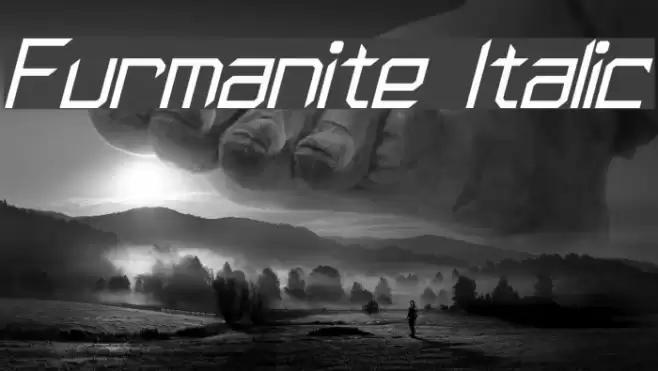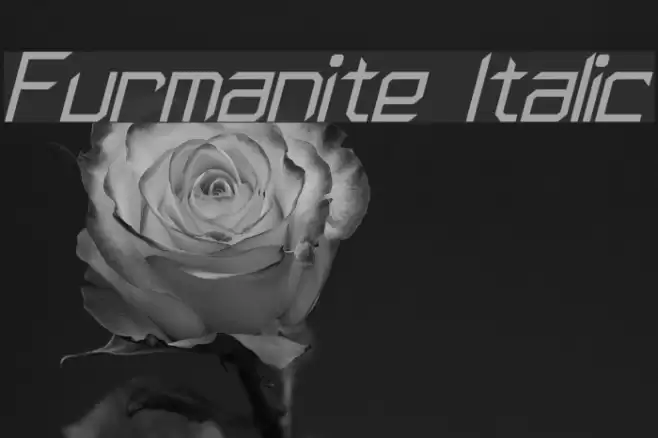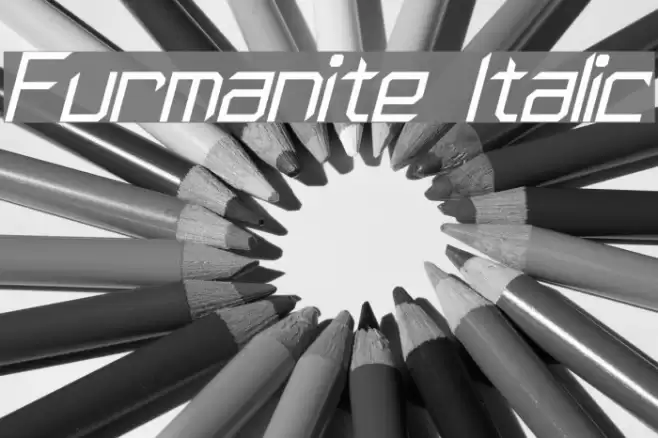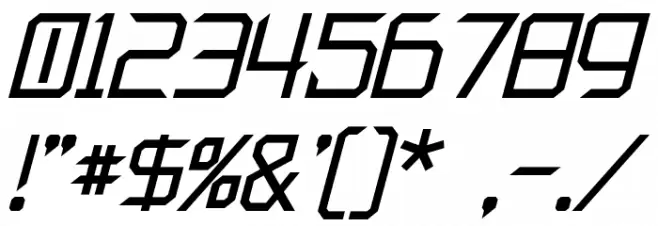
Furmanite Italic Font
Furmanite Italic Description
This font features a dynamic and angular design, characterized by sharp edges and a forward-leaning italic style. The uppercase and lowercase letters maintain a consistent geometric structure, giving it a futuristic and technical appearance. The numerals and special characters are crafted with the same angular precision, ensuring uniformity across all glyphs. The font's unique style makes it stand out, with a modern and edgy aesthetic that is both bold and eye-catching.
A dynamic, angular italic font with a futuristic and technical appearance from Uncategorized fonts.
- Proposed Projects: Ideal for technology branding, sci-fi themed projects, video game titles, and modern poster designs.